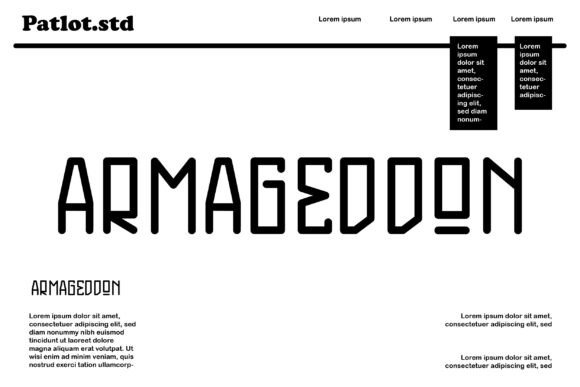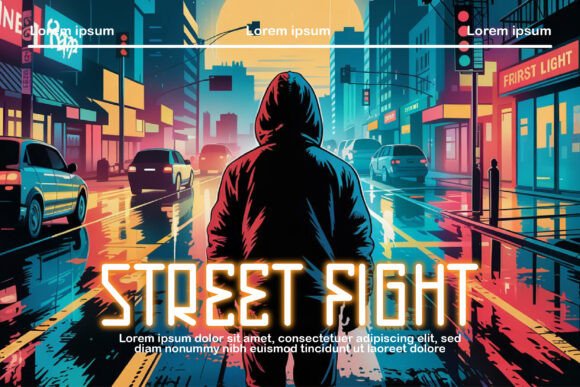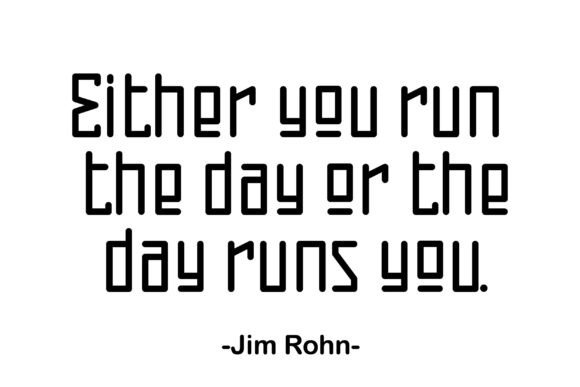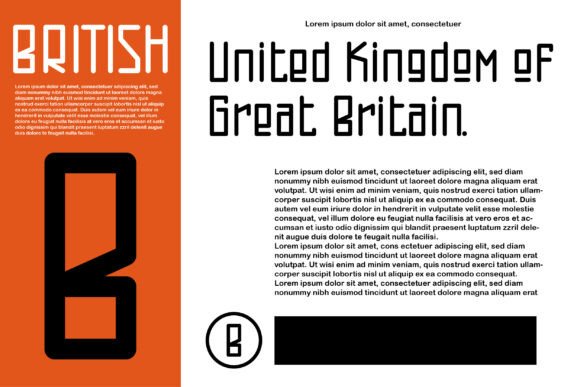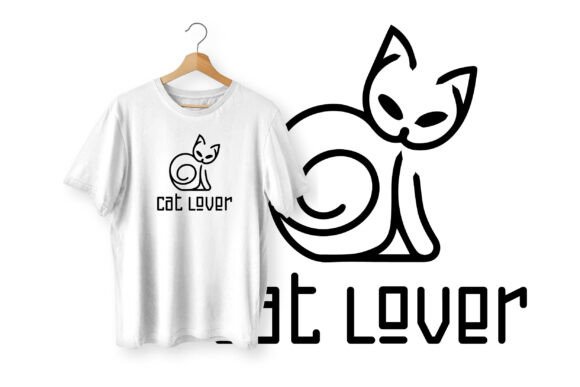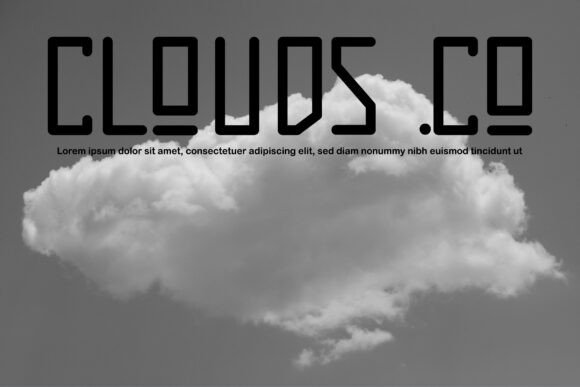
A Breath of Fresh Air in Typography
Have you ever stared at a blank canvas, eager to bring your creative vision to life, but feeling stuck in a sea of generic fonts? That’s when the spark of inspiration strikes – the moment you stumble upon the perfect font that elevates your work from ordinary to extraordinary. For designers, this moment is a game-changer, and we’re excited to introduce you to the Buroq Font, a display font that’s about to revolutionize the way you create.
With its unique blend of modernity and playfulness, the Buroq Font is the perfect companion for designers looking to add a touch of dynamism to their work. Whether you’re crafting social media posts, designing logos, or penning headlines, this font is sure to make your creative concepts stand out from the crowd. Its versatility and originality make it an invaluable asset for designers seeking to leave a lasting impression.
Buroq Font Key Features
- Font Family: Buroq Font is a sans-serif font family, available in 4 different styles: Light, Regular, Bold, and Black.
- Size: The font family includes 6 font sizes, ranging from 8pt to 72pt, making it suitable for various design applications.
- Resolution: Buroq Font is designed to work well at resolutions up to 300 DPI, ensuring crisp and clear text display.
- Unique Characteristics: The font features a clean and modern design, with a unique blend of geometric and organic shapes, making it ideal for modern branding and design projects.
- Language Support: Buroq Font supports a wide range of languages, including Latin, Cyrillic, and Greek scripts, making it a versatile choice for global design projects.
Buroq Font Review
I recently had the chance to work with Buroq Font, and I must say it’s a unique and interesting addition to my design toolkit. Here’s my honest review.
- Distinctive and modern design aesthetic: Buroq Font’s clean lines and geometric shapes give it a fresh and modern feel that’s perfect for contemporary designs.
- Wide range of languages supported: With its extensive language support, Buroq Font is a great option for designers working on multilingual projects.
- High-quality glyphs: The font’s glyphs are well-designed and easy to read, making it suitable for both body text and display use.
- Not ideal for complex or technical content: While Buroq Font is great for general text, its simplicity may not be suitable for complex or technical content that requires a more detailed and nuanced approach.
- Limited script and symbol support: While Buroq Font supports many languages, it falls short in terms of script and symbol support, which may be a limitation for designers working on projects that require a wider range of characters.
Overall, I think Buroq Font is a solid addition to any designer’s toolkit, but it’s not a one-size-fits-all solution. Its modern design aesthetic and wide language support make it perfect for contemporary designs, but its limitations in terms of script and symbol support may make it less suitable for more complex projects.
Tips for Getting the Most Out of Buroq Font
To maximize the effectiveness of Buroq Font, consider the following tips:
- Use Buroq Font for headings and titles to create visual hierarchy.
- Combine Buroq Font with other design elements, such as images and graphics, to create a cohesive look.
Buroq Font is commonly used for:
- Headings and titles in marketing materials.
- Displaying quotes and testimonials.
Q: Does Buroq Font support Unicode characters?
Yes, Buroq Font supports a wide range of Unicode characters, including Latin, Cyrillic, Greek, and many other languages. This makes it an ideal choice for multilingual designs and publications.